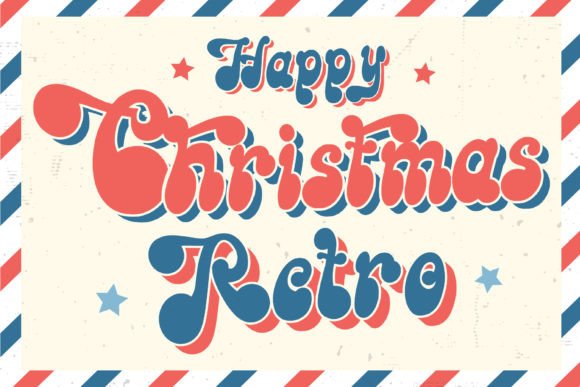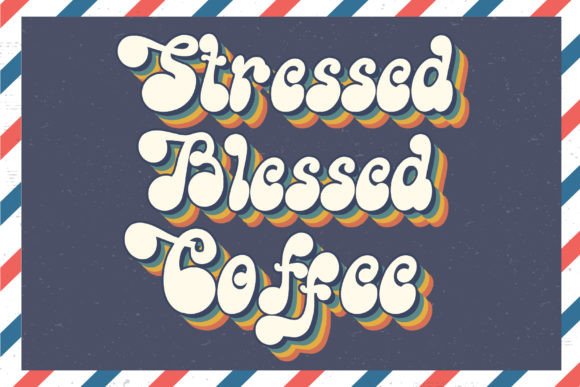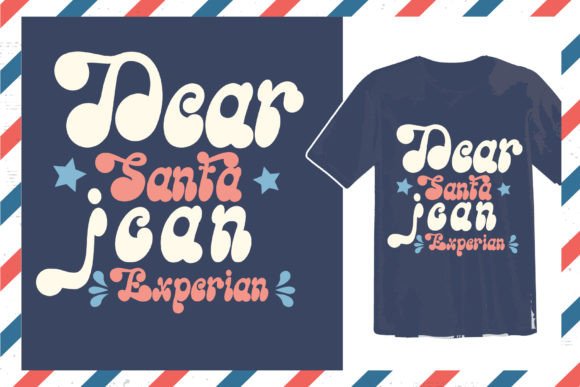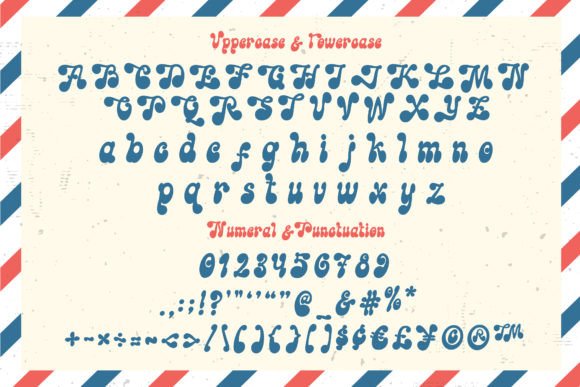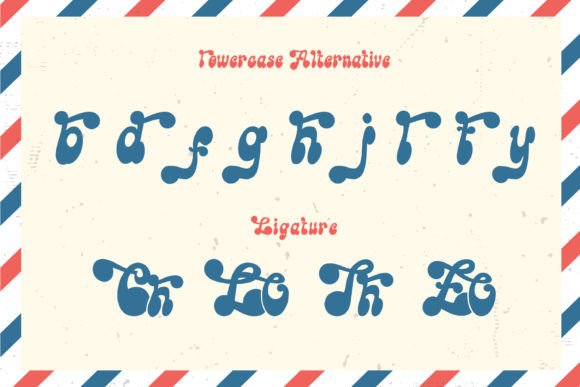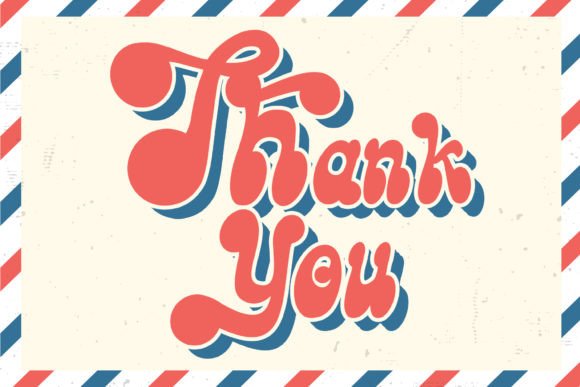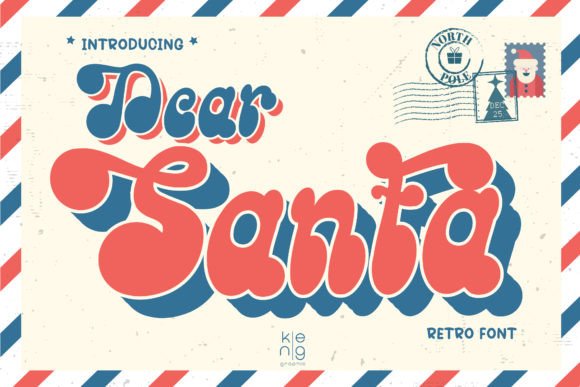
Dear Santa Font: The Ultimate Retro-Flair Addition to Your Winter Designs
As the winter season approaches, designers and crafters are on the lookout for the perfect fonts to add a touch of magic to their holiday-themed projects. If you’re aiming to infuse your designs with a dash of retro flair, look no further than the Dear Santa font. This fun and festive script display font is the ideal choice for anyone looking to create eye-catching winter designs that exude a sense of nostalgia and whimsy.
What is Dear Santa Font?
Dear Santa font is a beautifully crafted script display font that embodies the spirit of the holiday season. Its elegant, cursive strokes and charming letterforms evoke a sense of nostalgia, reminiscent of classic holiday cards and decorations from years past. The font’s unique character and playful feel make it perfect for a wide range of winter-themed projects, from festive holiday cards and invitations to cozy winter crafts and decorations.
Key Features of Dear Santa Font
So, what makes Dear Santa font so special? Here are just a few of its key features:
- Retro Flair: Dear Santa font boasts a distinctly retro aesthetic that’s sure to add a touch of vintage charm to your winter designs.
- Festive and Fun: With its playful, cursive strokes and whimsical letterforms, this font is the perfect choice for holiday-themed projects.
- Script Display Font: Dear Santa font is a beautiful script display font that’s ideal for headlines, titles, and other prominent text elements.
- Elegant and Whimsical: This font strikes the perfect balance between elegance and whimsy, making it suitable for a wide range of winter designs.
Uses for Dear Santa Font
Dear Santa font is incredibly versatile, making it suitable for a wide range of winter-themed projects. Here are just a few ideas to get you started:
- Holiday Cards and Invitations: Add a touch of retro flair to your holiday cards and invitations with Dear Santa font.
- Winter Crafts and Decorations: Use this font to create festive decorations, such as garlands, banners, and gift tags.
- Social Media Graphics: Create eye-catching social media graphics, such as holiday-themed Facebook posts and Instagram stories.
- Digital Papers and Scrapbooking: Add a touch of whimsy to your digital papers and scrapbooking projects with Dear Santa font.
Tips for Using Dear Santa Font
To get the most out of Dear Santa font, here are a few tips to keep in mind:
- Pair with Bold Fonts: Pair Dear Santa font with bold, modern fonts to create a striking contrast.
- Use Sparingly: Use this font sparingly to avoid overwhelming your design. It’s perfect for headlines and titles.
- Experiment with Colors: Try pairing Dear Santa font with a range of winter-inspired colors, such as red, green, and blue.
In conclusion, Dear Santa font is a fun and festive script display font that’s perfect for adding a touch of retro flair to your winter designs. With its elegant, cursive strokes and whimsical letterforms, this font is sure to become a staple in your design library. So why wait? Download Dear Santa font today and start creating magical winter designs that will leave your audience spellbound!